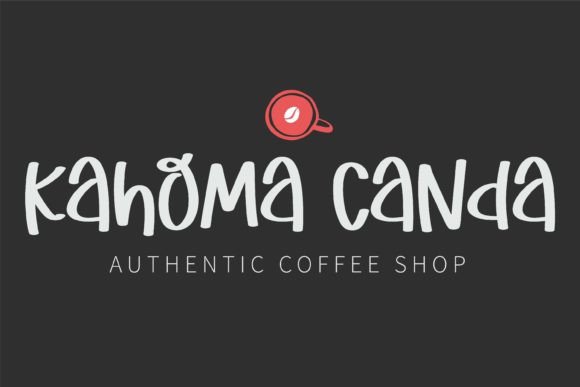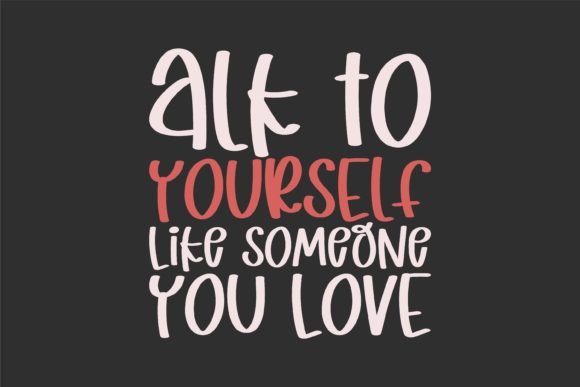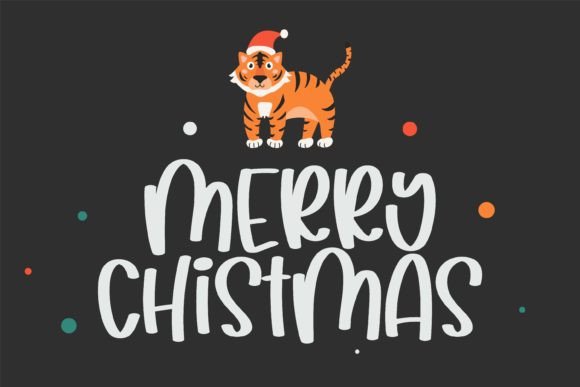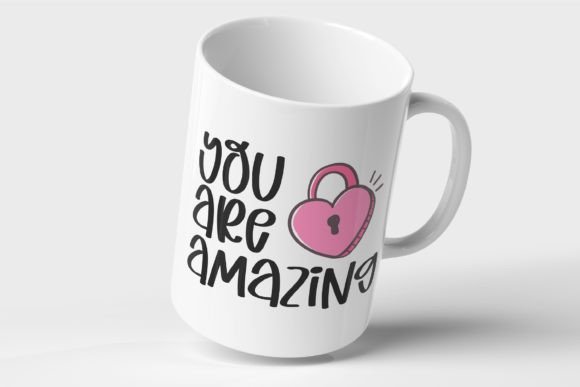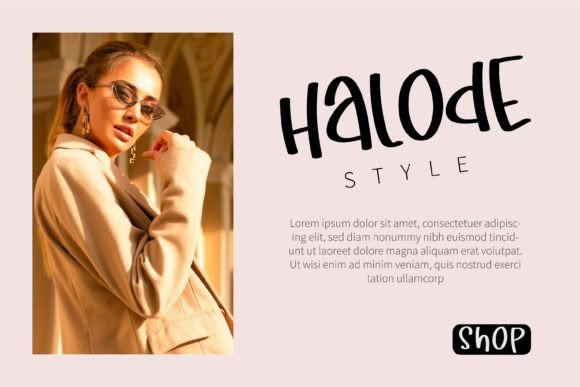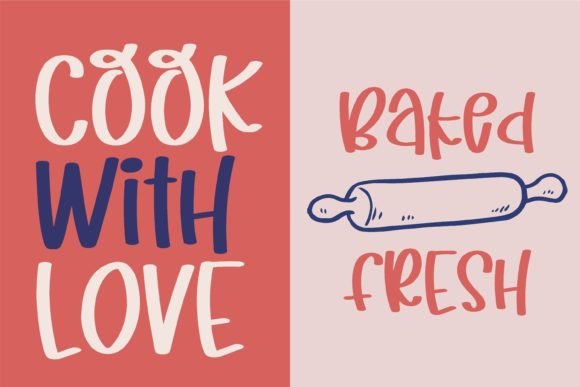
Introducing Finally Font: The Sweet and Flowing Handwritten Font
Are you tired of using the same old fonts for your designs? Look no further! Finally Font is here to revolutionize your creative projects with its sweet and flowing handwritten style. This incredibly versatile font is perfect for designers and crafters who want to add a touch of elegance and sophistication to their work.
The Characteristics of Finally Font
Finally Font is a beautiful, handwritten font that exudes a sense of romance and whimsy. Its flowing lines and delicate curves make it perfect for creating gorgeous wedding invitations, beautiful stationery art, eye-catching social media posts, and much more. The font’s sweet and feminine style is sure to capture the hearts of your audience and leave a lasting impression.
Uses of Finally Font
The versatility of Finally Font is one of its most attractive features. Here are just a few ideas for how you can use this amazing font:
• Wedding Invitations: Create stunning wedding invitations that set the tone for a beautiful and memorable day.
• Stationery Art: Design gorgeous stationery art that showcases your creativity and attention to detail.
• Social Media Posts: Make your social media posts stand out with Finally Font’s eye-catching style.
• Branding: Use Finally Font to create a cohesive brand identity that reflects your business’s personality and values.
• Crafting: Add a personal touch to your crafting projects, such as handmade cards, gift tags, and scrapbooking pages.
Why Choose Finally Font?
So, why choose Finally Font over other fonts? Here are just a few reasons:
• Unique Style: Finally Font has a unique and distinctive style that will set your designs apart from the crowd.
• Versatility: This font is incredibly versatile and can be used for a wide range of projects.
• High-Quality: This font is of high quality, with crisp and clear lines that will look great in any design.
Tips for Using Finally Font
Here are a few tips for getting the most out of Finally Font:
• Experiment with Different Sizes: Try out different font sizes to see how Finally Font looks in different contexts.
• Pair with Other Fonts: Experiment with pairing Finally Font with other fonts to create a unique and interesting look.
• Use in Combination with Images: Use Finally Font in combination with images to create stunning visual effects.
• Pay Attention to Kerning: Pay attention to kerning, or the space between letters, to ensure that your text looks professional and polished.
Finally Font is a sweet and flowing handwritten font that is sure to capture your heart. Its incredibly versatile style makes it perfect for a wide range of projects, from wedding invitations to social media posts. With its unique style, ease of use, and high-quality design, Finally Font is a must-have for designers and crafters. So why wait? Download Finally Font today and start creating stunning designs that will leave a lasting impression!